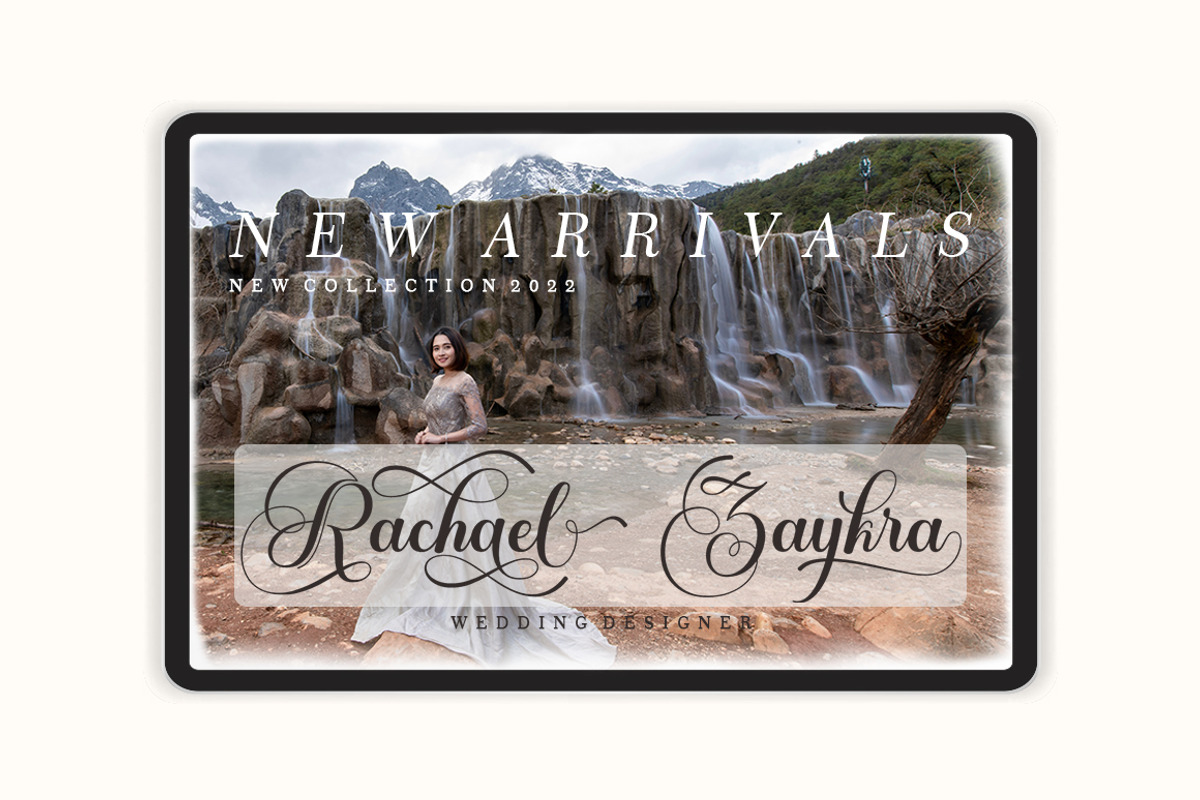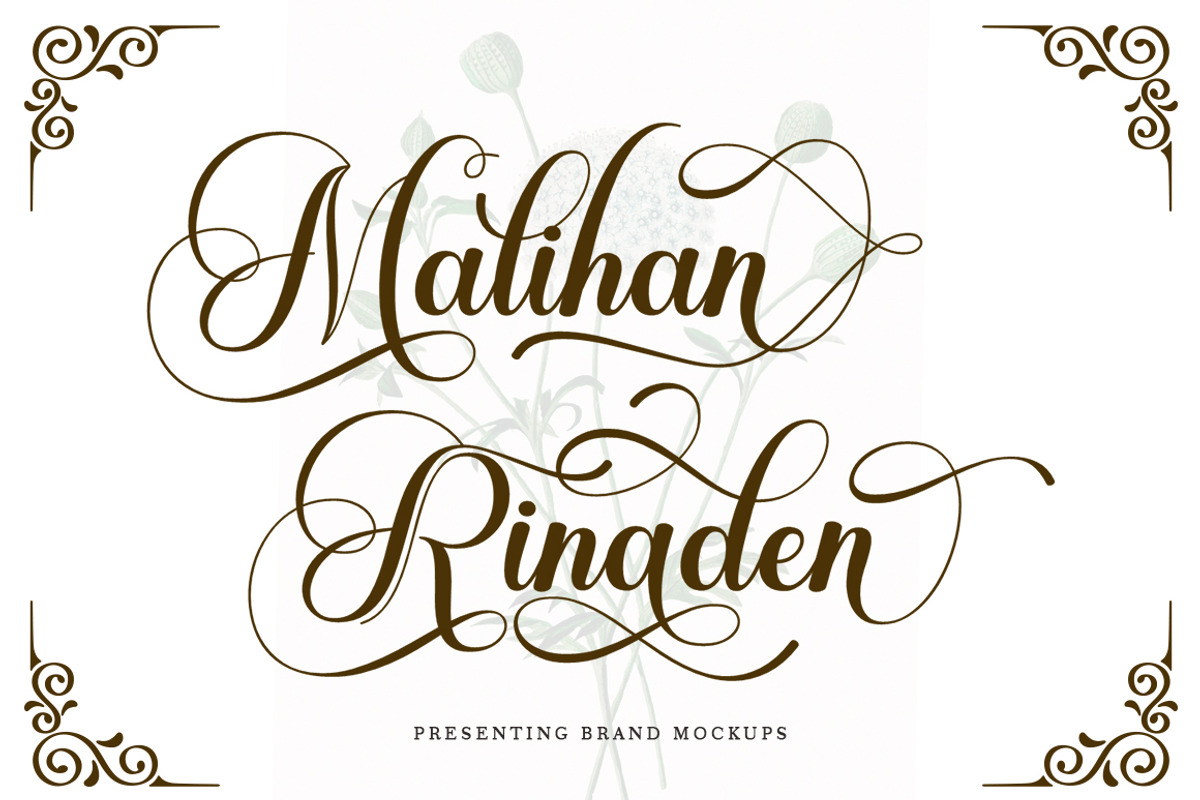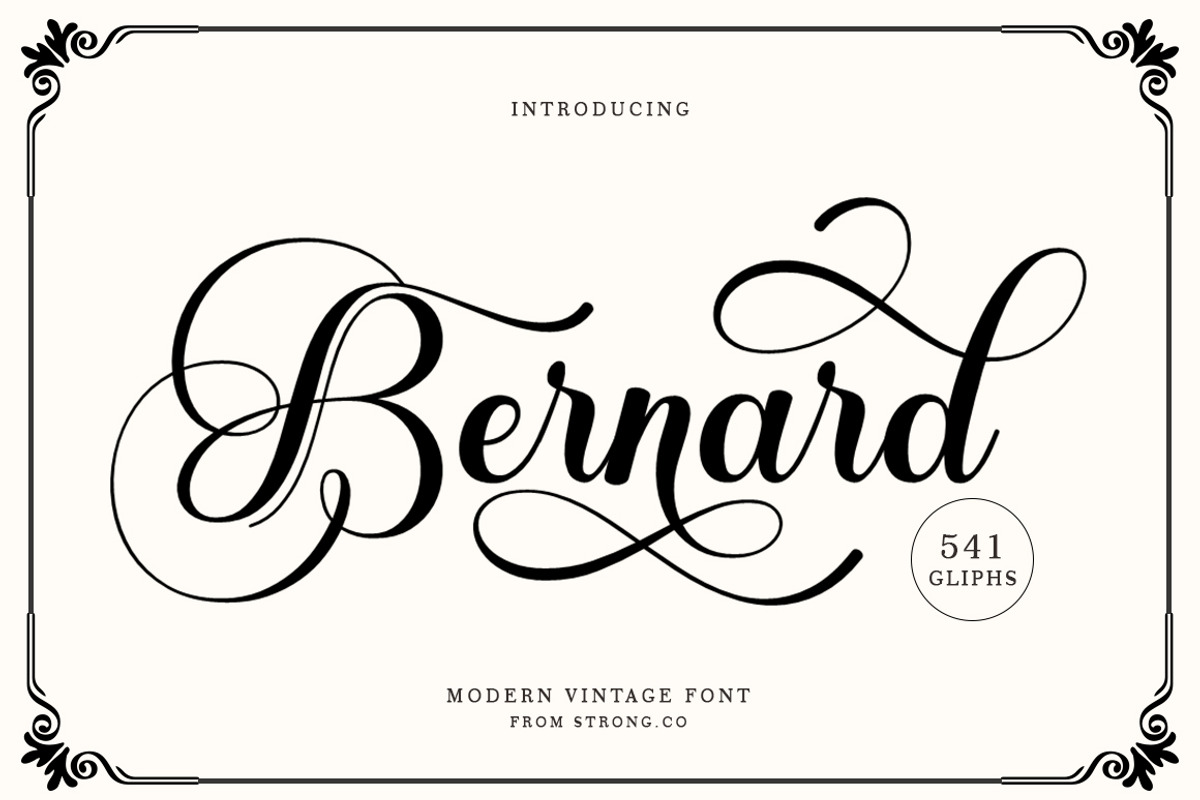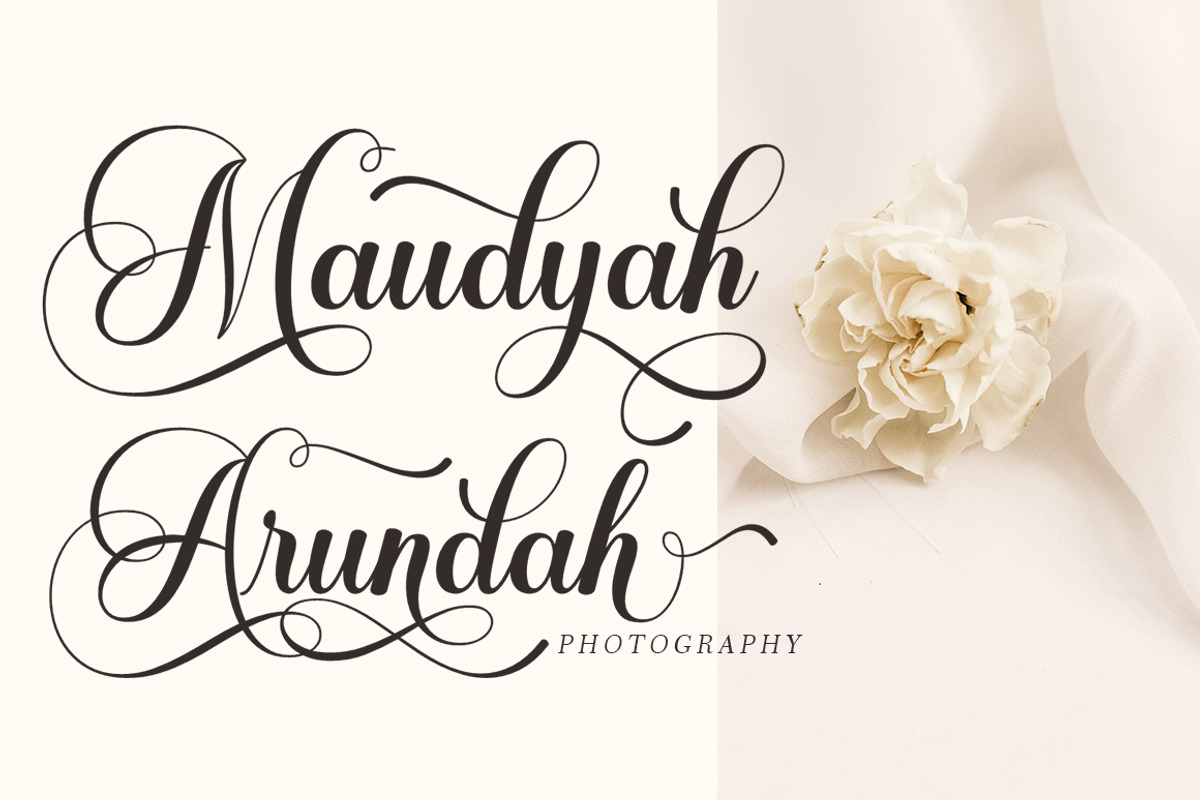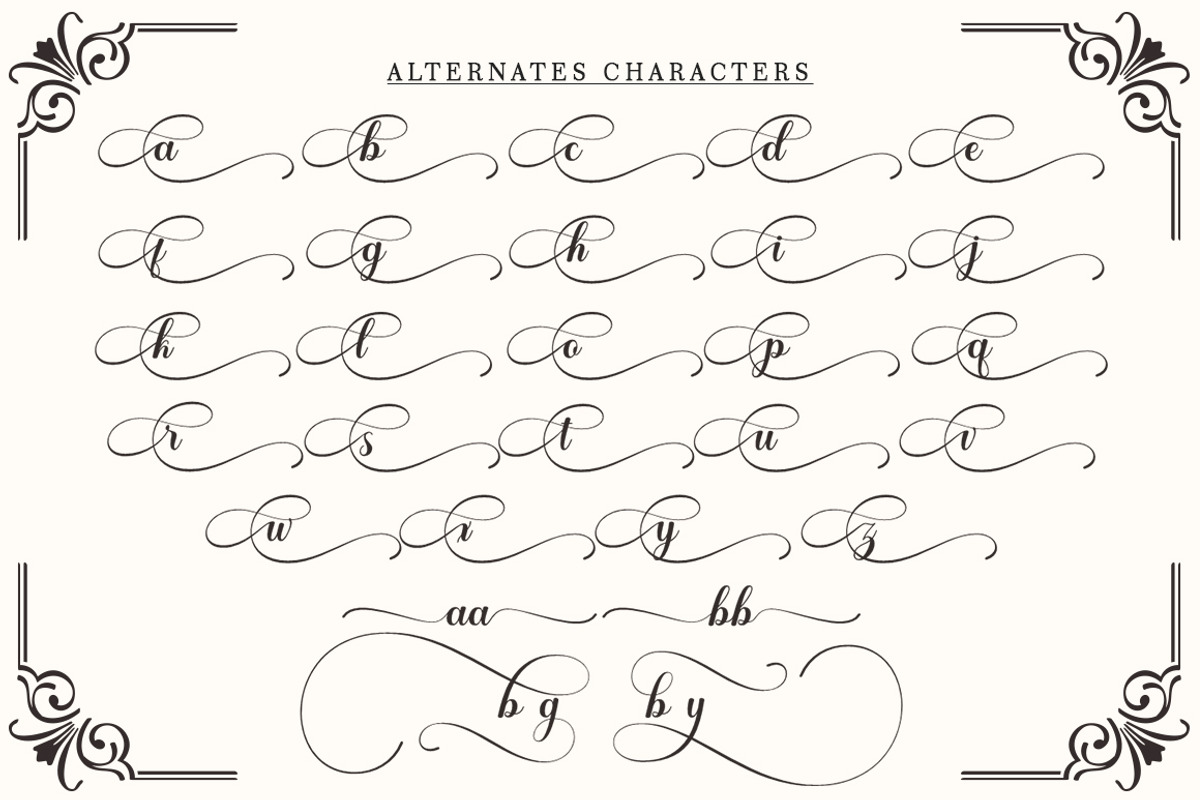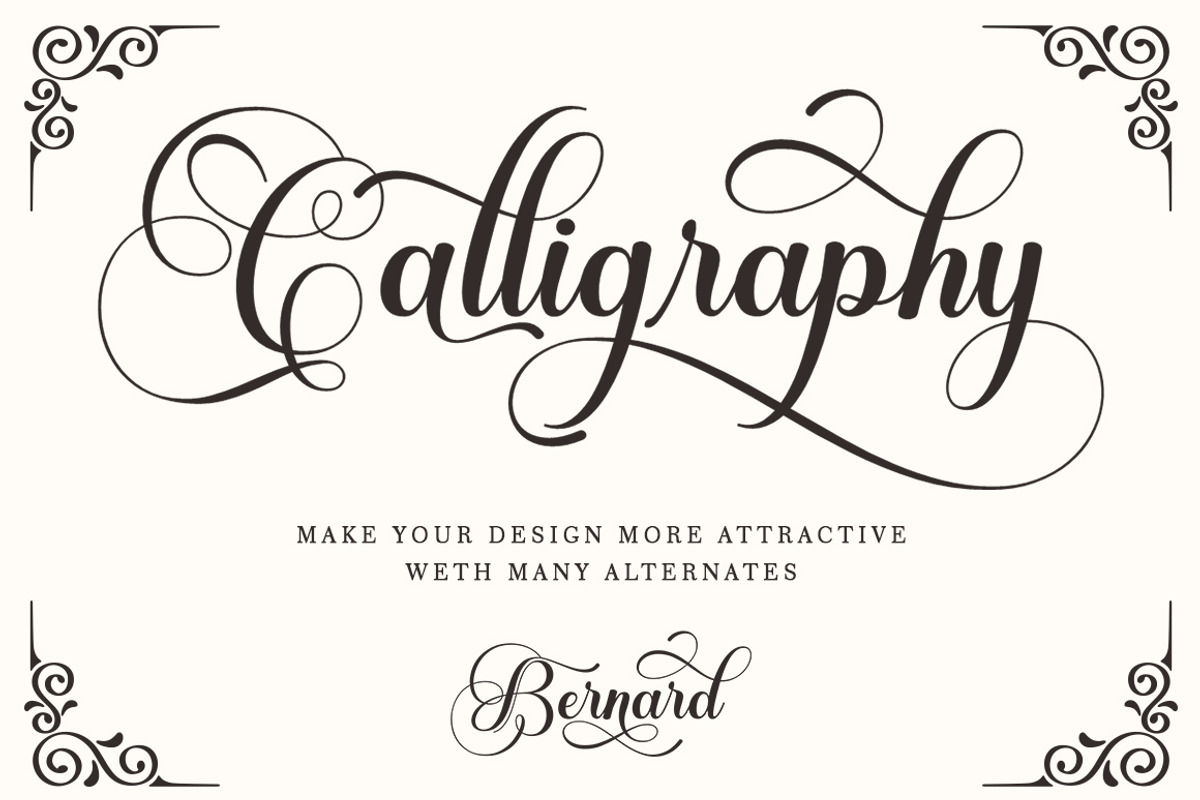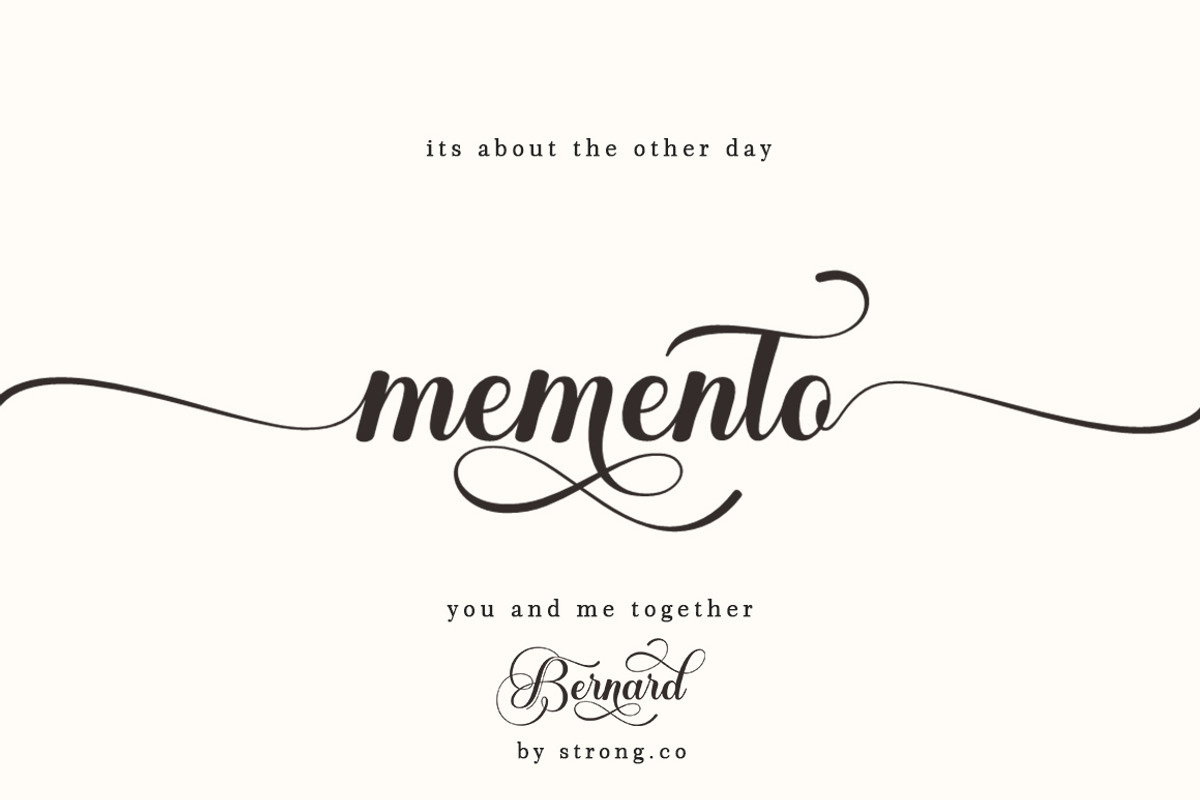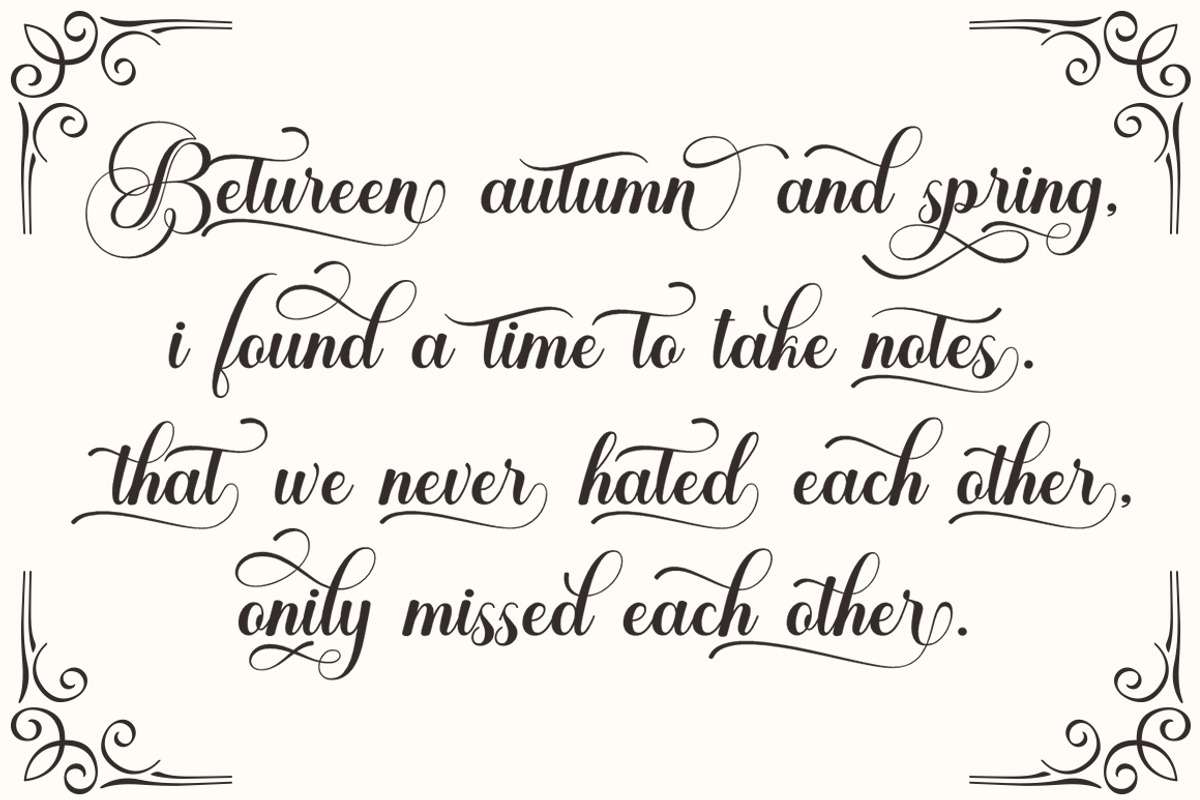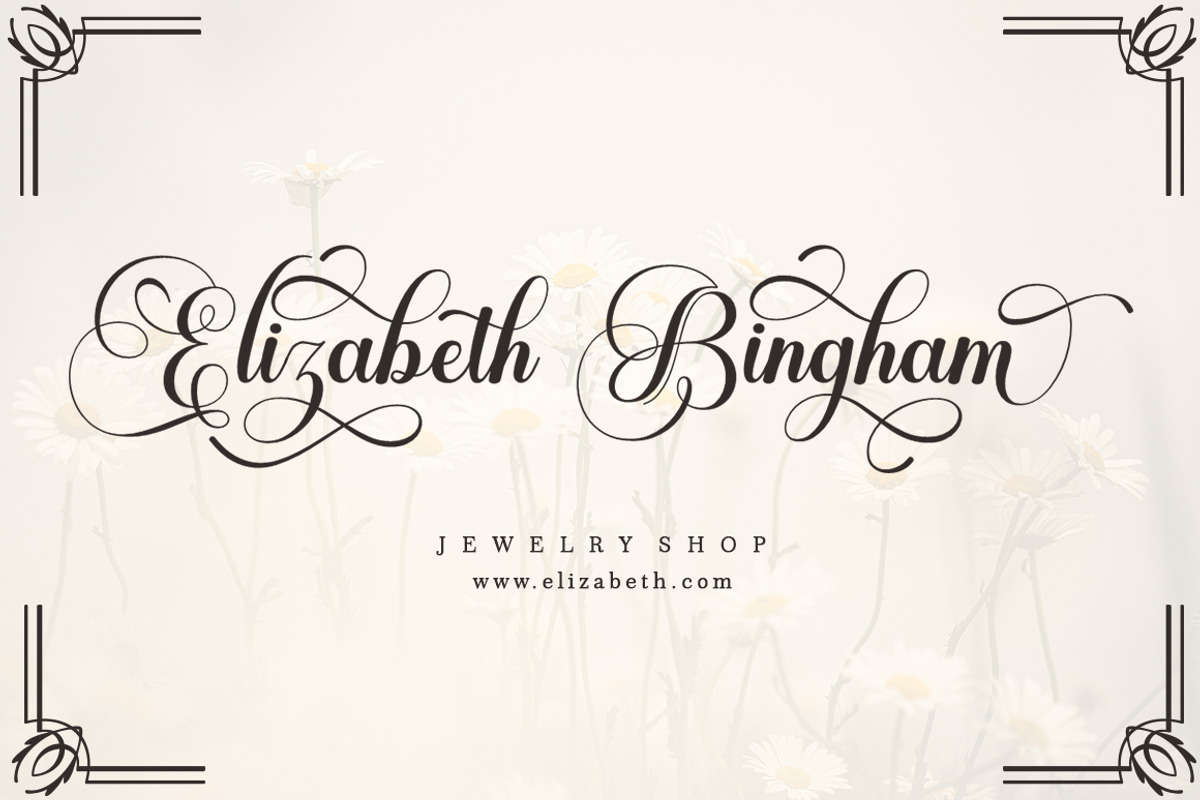
Bernard Script
Is a calligraphy Vintage script font that comes with beautiful alternate characters. copper plate mix calligraphy with handlettering style. Designed to convey stylish elegance. Pagoda attracts like a typeface that is smooth, clean, feminine, sensual, glamorous, simple and very easy to read.
Bernard Script comes with a Clean and Aged version, beautiful upper and lower case, binding and loved by many finishes. It has Multilingual support (Western European characters) and works with the following languages: English, Danish, Dutch, Estonian, Finnish, French, German, Hungarian, Icelandic, Italian, Norwegian, Polish, Portuguese, Spanish, Swedish.
In my example I show how this script can be used. It's perfect for logos, wedding invitations, alcohol labels, romantic cards, and more.